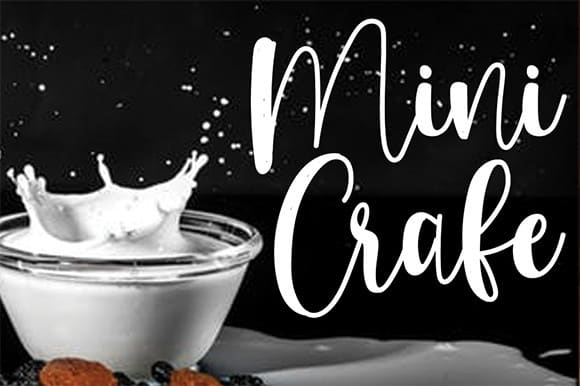
Mini Crafe is an adorable as well as informal transcribed typeface with an extremely pleasant feeling.
Whether you\’re trying to find font styles for Instagram or calligraphy manuscripts for Do It Yourself jobs, this typeface will certainly transform any type of innovative suggestion right into a real art piece!